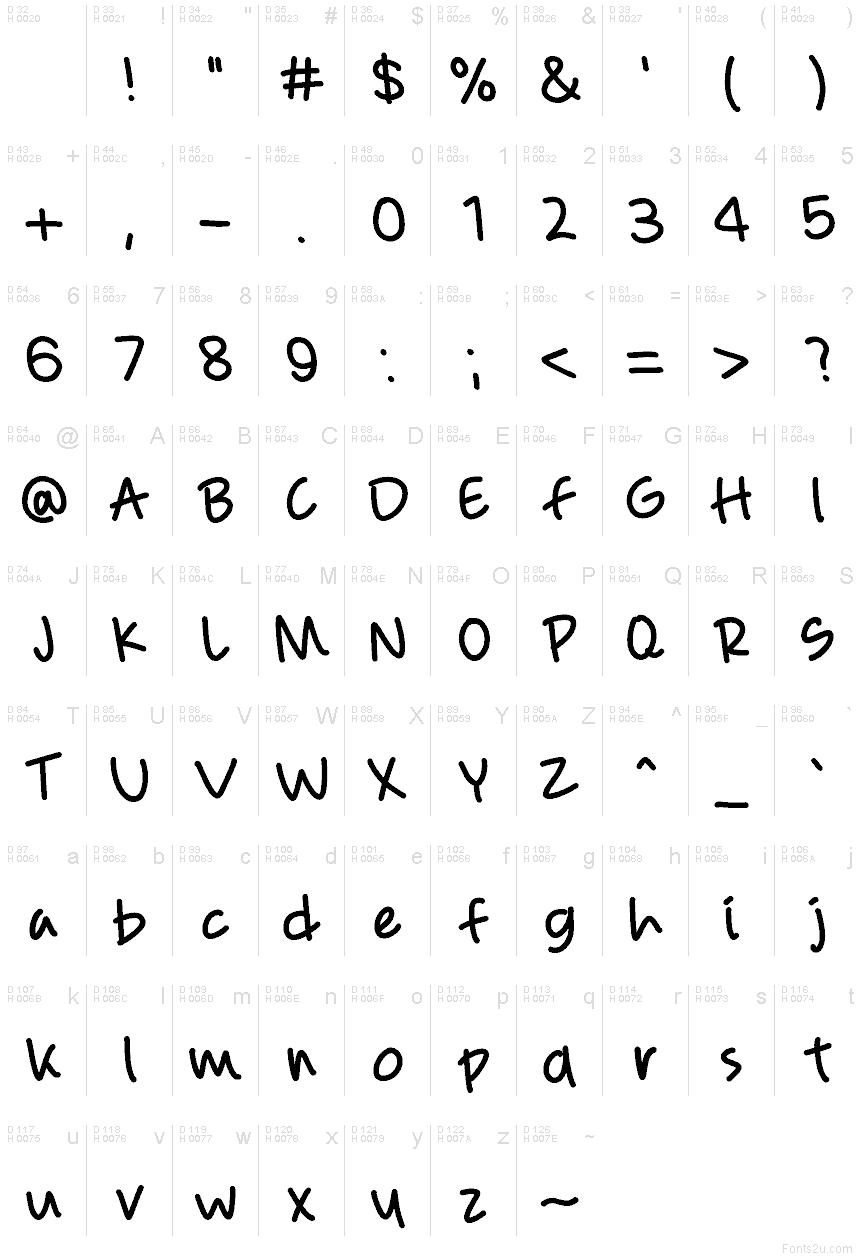
Lovely Ghosting
Lovely Ghosting font by Origin Type is a free handwritten font with a casual elegance and modern simplicity. It captures an approachable feel with its relaxed charm, making it perfect for adding a touch of personal flair without overwhelming the main message.